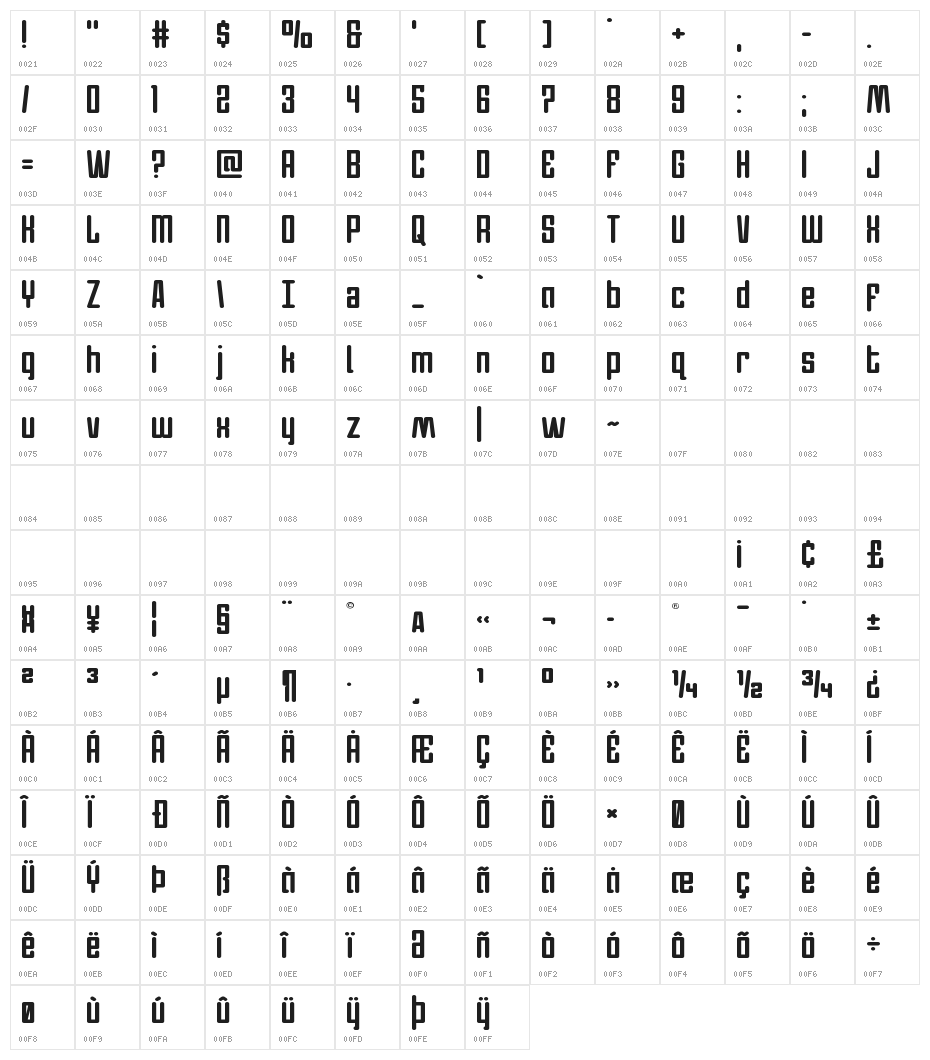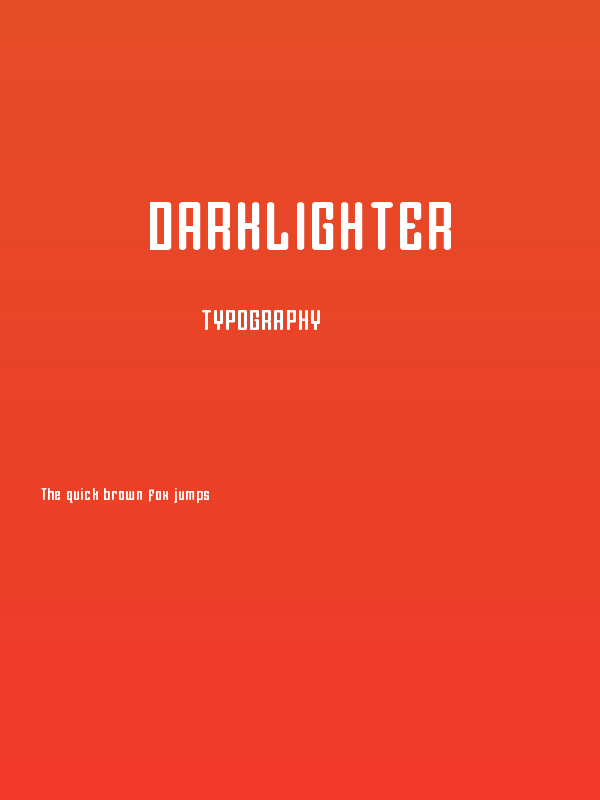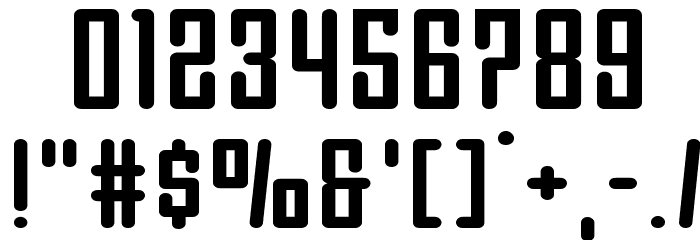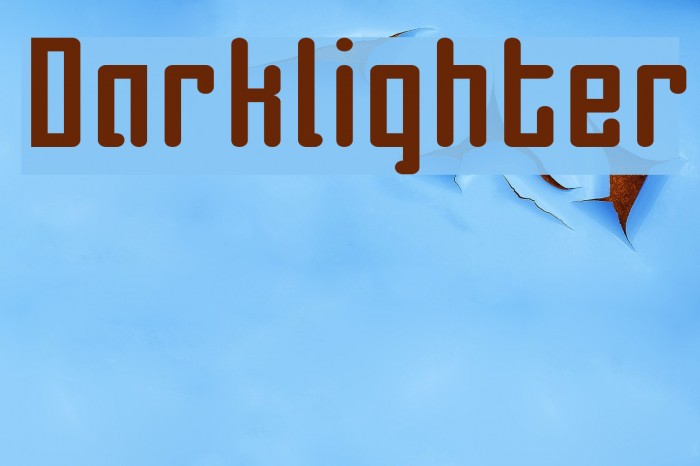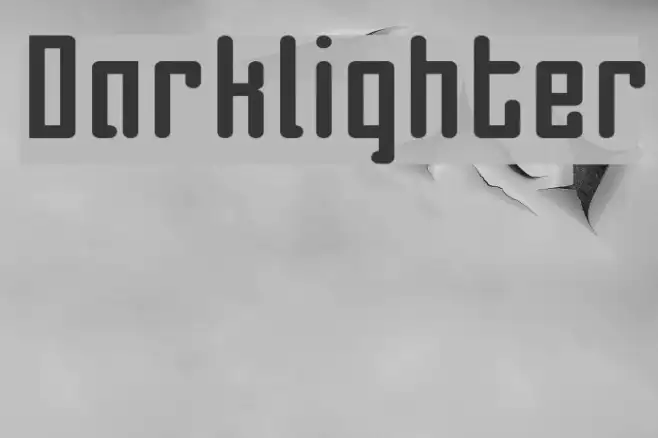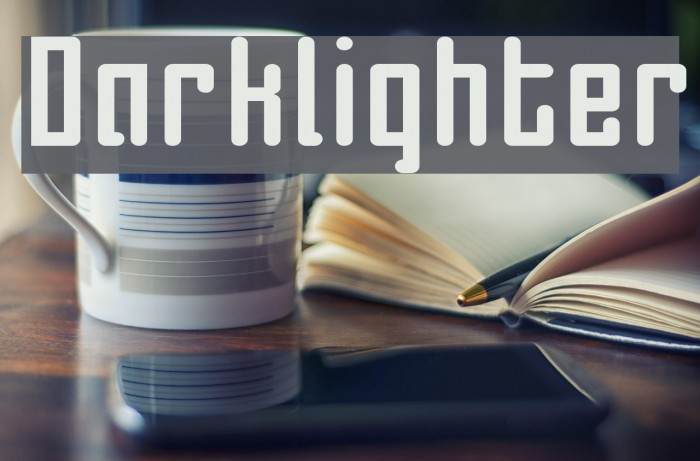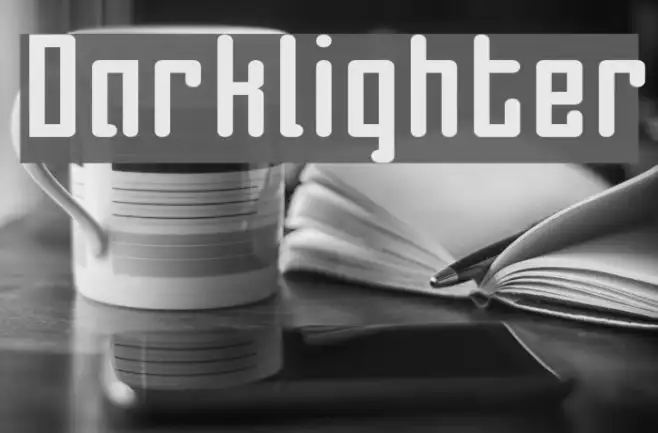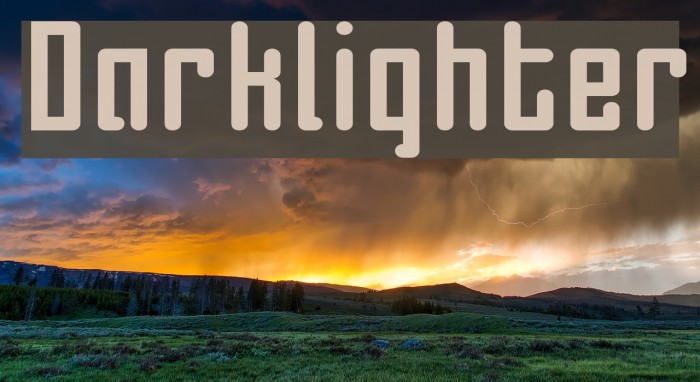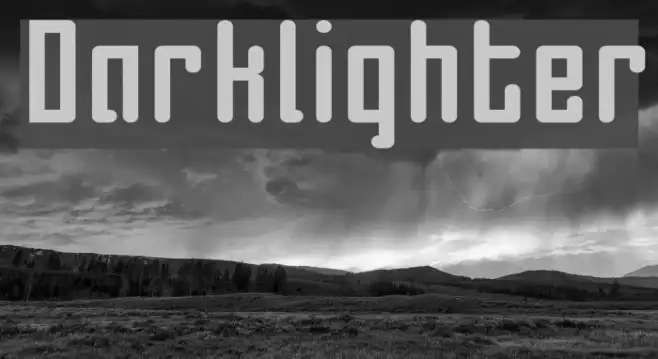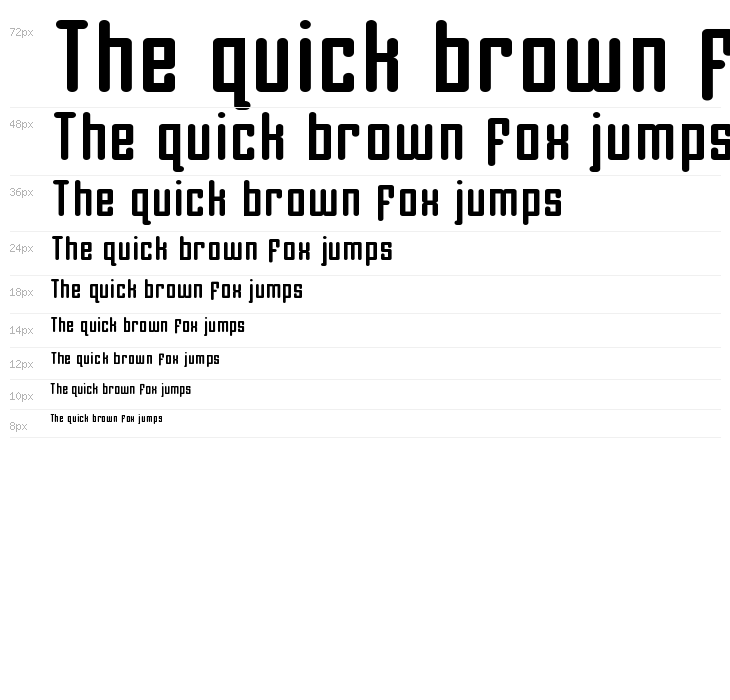
Darklighter Font
Darklighter Description
This font features a bold, geometric design with a modern and futuristic appeal. The characters are constructed with consistent stroke widths, creating a uniform and cohesive look. The uppercase and lowercase letters maintain a similar structure, enhancing readability while providing a unique style. The numerals and special characters are designed to match the overall aesthetic, making the font versatile for various applications. Its clean lines and structured form make it suitable for both digital and print media, offering a contemporary edge to any project.
DARKLIGHTER UPPERCASE
DARKLIGHTER LOWERCASE
DARKLIGHTER OTHER CHARS